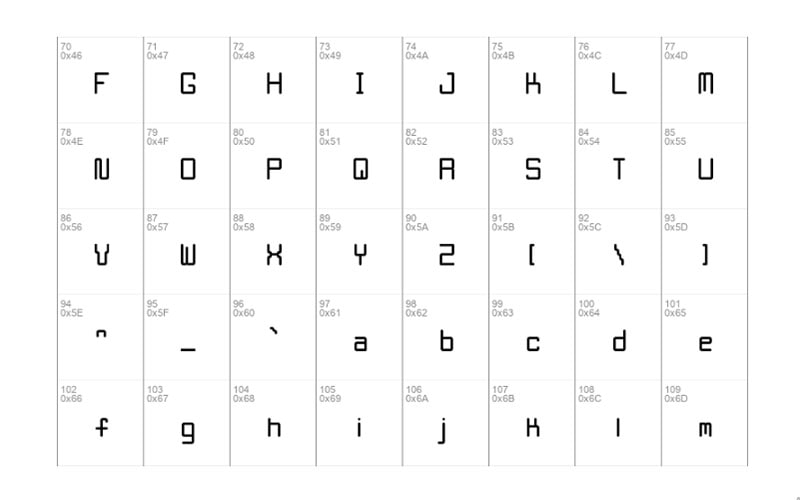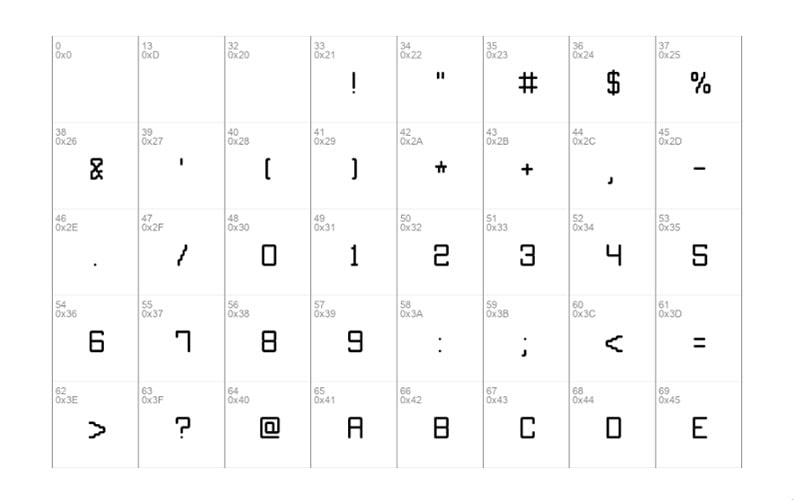
Shark Tube You Font is a striking and modern typeface known for its bold presence and edgy design. It captures the spirit of contemporary media, making it a popular choice for projects that require a strong visual impact.
The designer behind this Font is widely publicized named Sharkragon, as it often emerges from collaborative or fan-driven efforts to create a typeface inspired by popular digital aesthetics.
It typically contains a single font style, characterized by its clean, bold lines and geometric shapes. Its design emphasizes clarity and impact, making it suitable for a variety of modern design applications.
The character set is designed to ensure versatility and functionality across different types of text including uppercase and lowercase letters, numerals, punctuation marks, and special characters.
The Shark Tube You Font primarily supports the Latin script, making it suitable for English and other languages that use this script. This allows for versatile use in different linguistic contexts.
It is ideal for a variety of design applications, including YouTube thumbnails, channel branding, Social media graphics, posts, Modern advertising, promotional materials, and Digital and web designs.